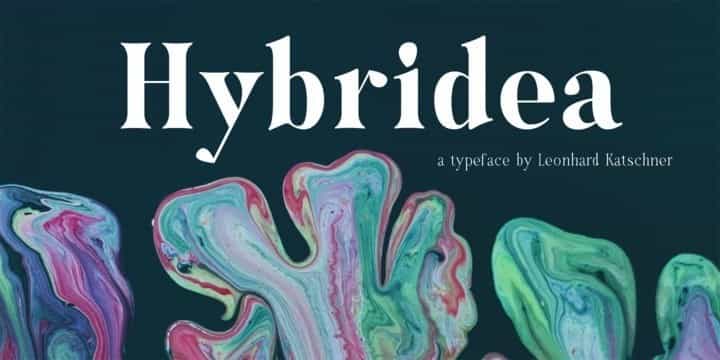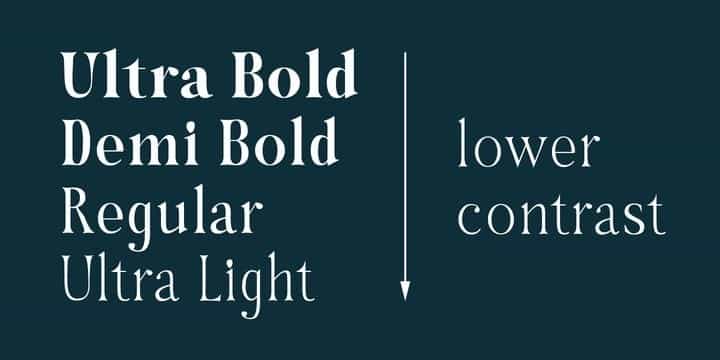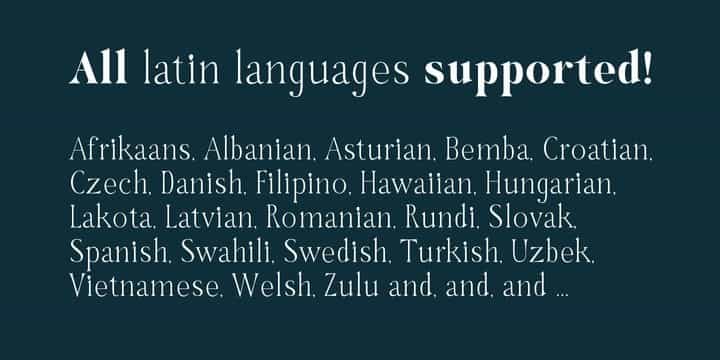
Hybridea is a serif family type which is clear and to the point. It also comes with a modern design that is suitable to be combined with different fonts. It can be applied in the improvement of the branding or design of a specific product. It includes the punctuations, both lower and upper case, numbers and even supports multiple languages with some symbols.